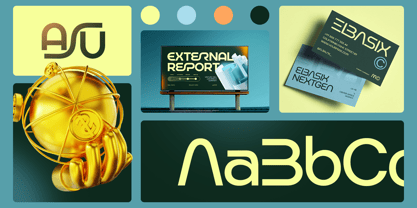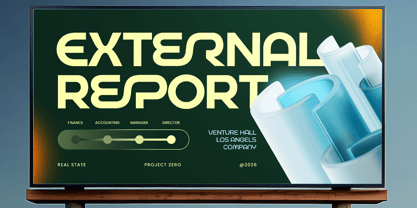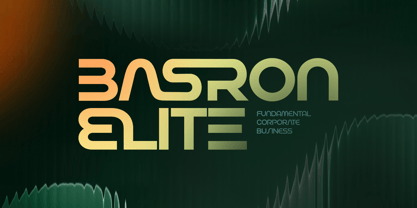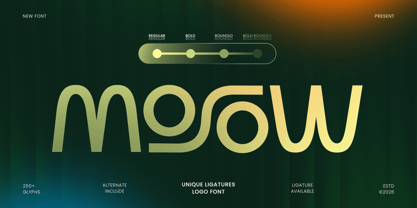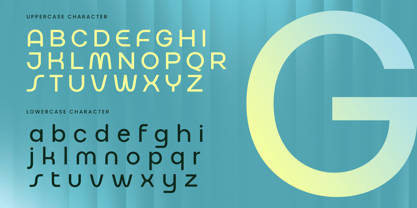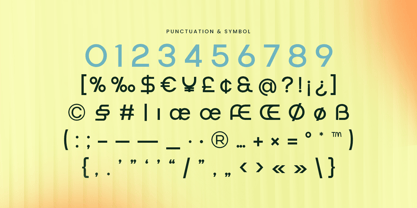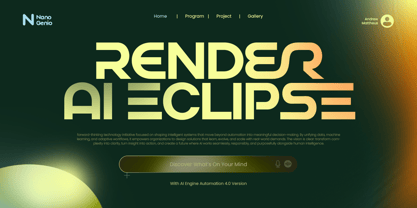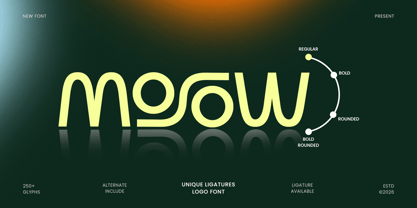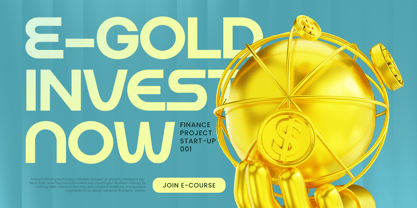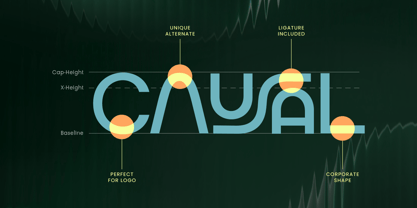
Mosow
The Mosow Font Family was designed by Zamroni Hamzah and published by Sensatype Studio. Mosow contains 4 styles and family package options. More about this family
MOSOW is a display tech logo font designed to bring futuristic precision and bold digital personality to your typography. With sharp structure, clean proportions, and a modern technology-inspired rhythm, this typeface creates a sleek visual tone that feels innovative, confident, and instantly brand-ready.
Built for tech-focused branding and headline design, MOSOW works beautifully across logos, wordmarks, UI graphics, website headers, app visuals, digital posters, product launches, presentations, social media campaigns, and futuristic promotional layouts. Its display-driven form keeps every headline strong and readable while adding a high-tech edge across both digital and print design.
Whether you’re building a startup identity, creating software branding, designing gaming visuals, or crafting sci-fi inspired marketing assets, MOSOW provides a powerful tech foundation that makes your typography feel modern, sharp, and unforgettable.
Inspiration Behind MOSOW
MOSOW is inspired by futuristic interface design and modern technology branding—where clean geometry, digital rhythm, and sharp visual structure create a forward-thinking identity. The design focuses on sleek display impact and tech-driven clarity to support logos, headlines, and digital-first communication with a bold modern presence.
MOSOW Font Features:
• Display tech letterforms optimized for logo and branding design
• Ready with 4 font style: regular, bold, rounded and rounded-bold
• Futuristic structure with sleek digital visual character
• Strong readability for headlines, posters, and interface graphics
• Perfect for technology brands, startups, and sci-fi visuals
• Uppercase, lowercase, numerals, and punctuation included
• OpenType features for polished professional typesetting
Perfect For
• Tech logos, wordmarks, and startup brand identity systems
• UI graphics, website headers, apps, and digital product typography
• Futuristic posters, product launches, and sci-fi campaign visuals
• Gaming branding, esports graphics, and modern tech promotions
• Social media graphics, presentations, and digital marketing assets
Power your brand with MOSOW—a display tech logo font built for futuristic, high-impact visual identity. ⚡✨